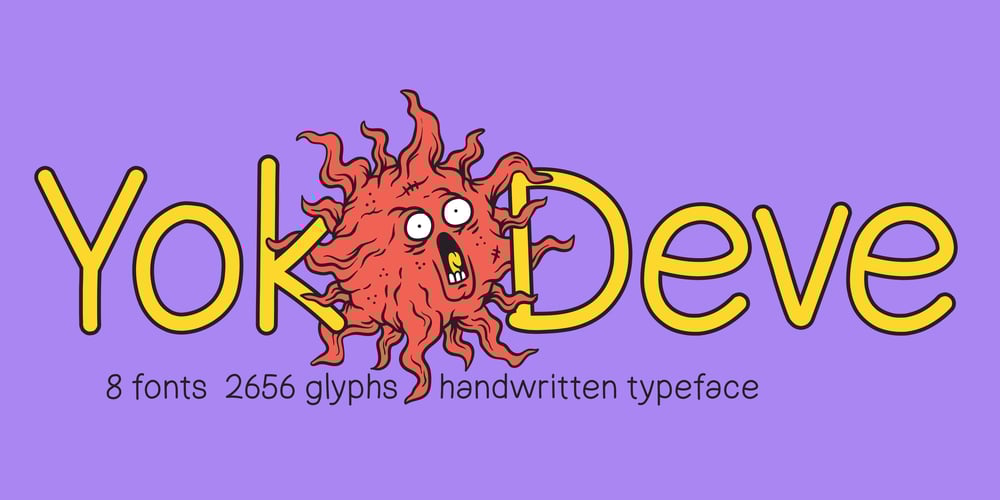
SK Yok Deve Font Family was designed by Salih Kizilkaya and published by Salih Kizilkaya. SK Yok Deve contains 8 styles and family package options. SK Yok Deve is a handwritten font. It is designed for use in cartoons, comics or illustrations. Special kerning settings have been made for easy reading in small areas such as speech bubbles.It offers full support for the Latin alphabet and contains many typographic elements. In this way, you can easily use it in your designs. This font family includes 8 fonts and 2656 glyphs. In this way, it contains many typographic materials you will need.